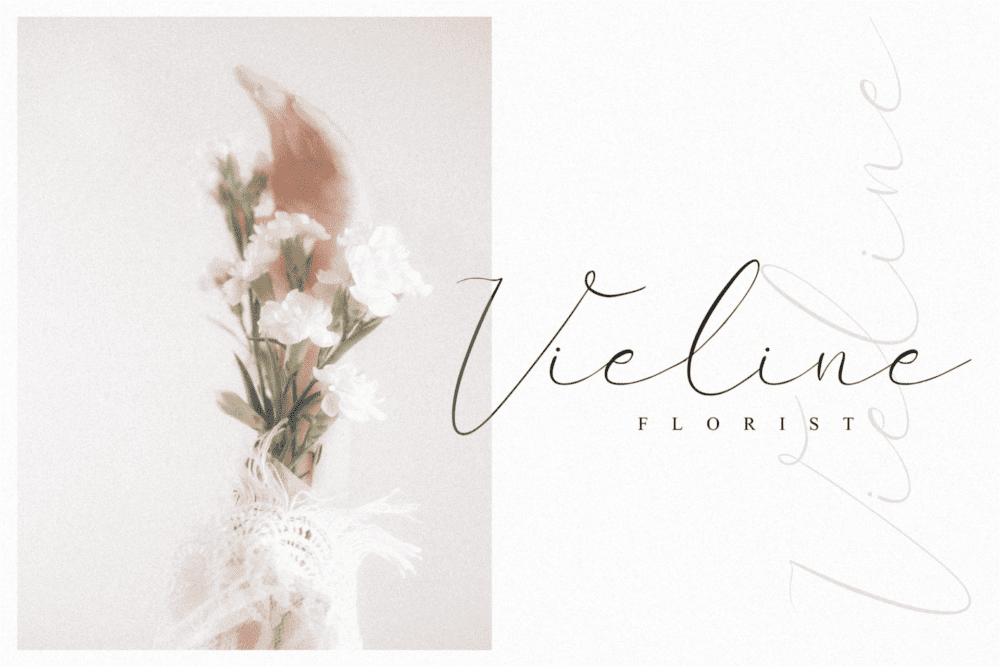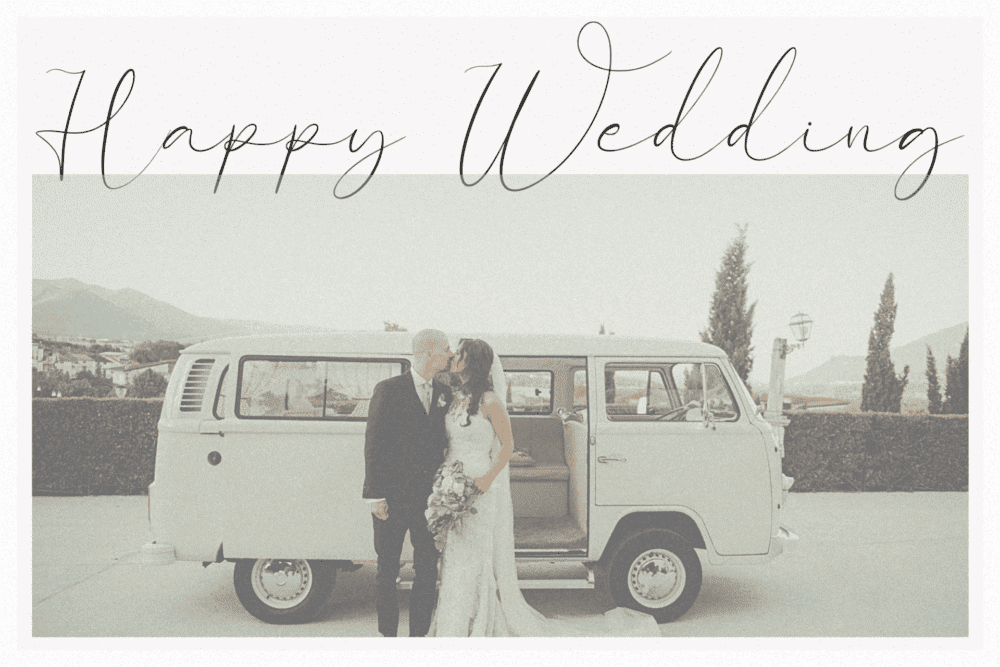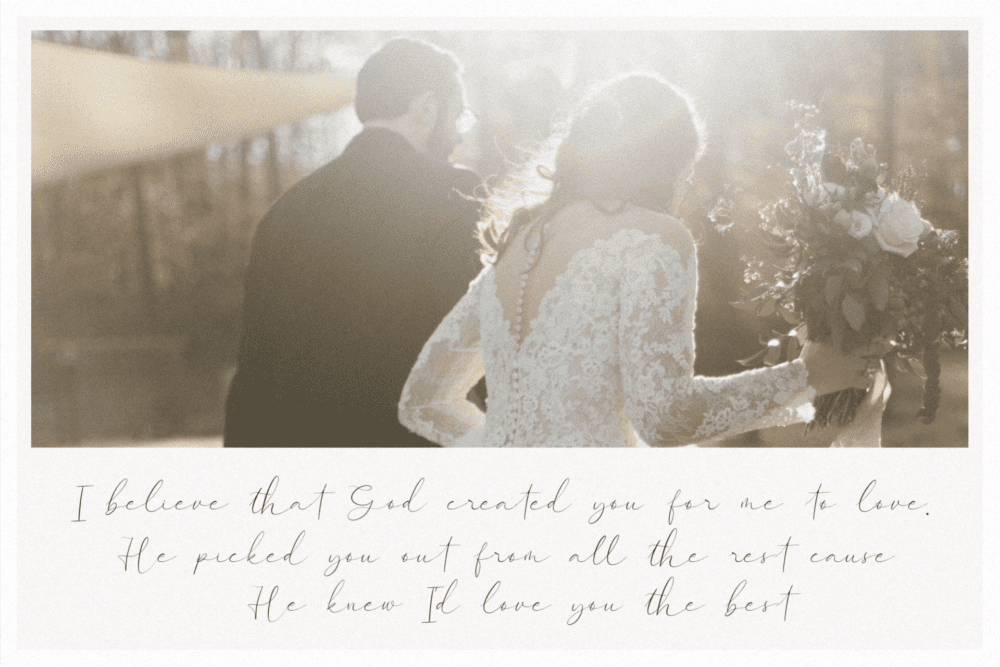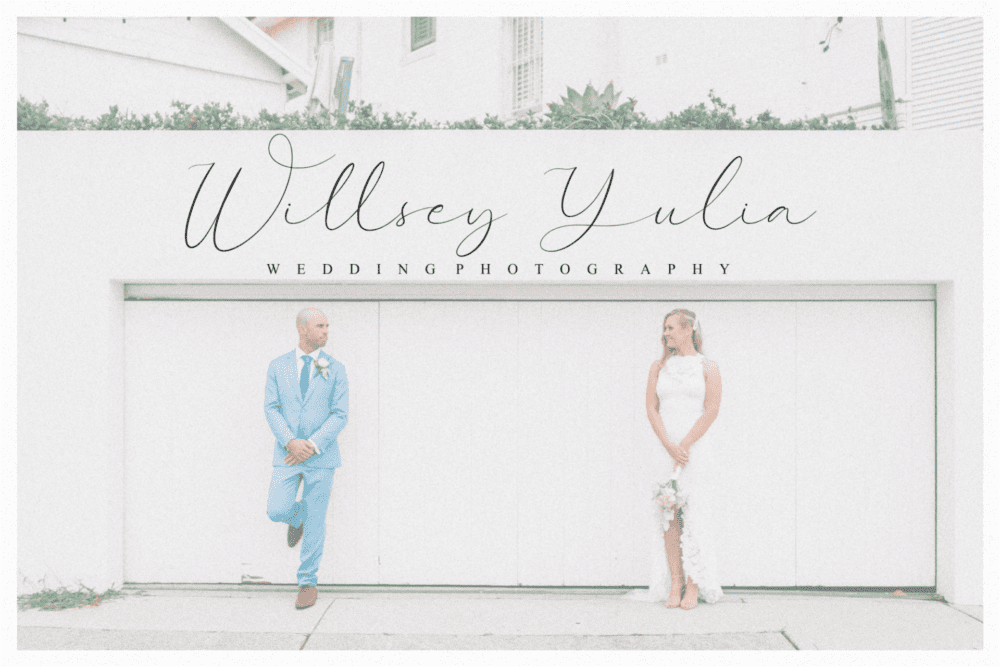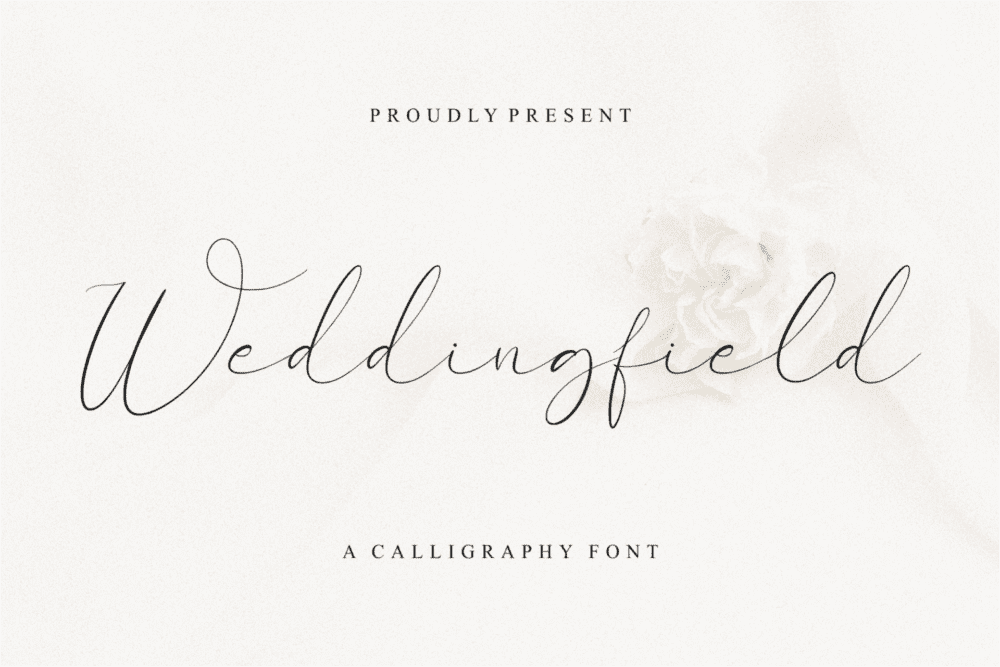
Weddingfield Font
Weddingfield is a chic, refined script font that emanates sophistication and elegance. Its stylish alternates and ligatures make this font the perfect match for any project.